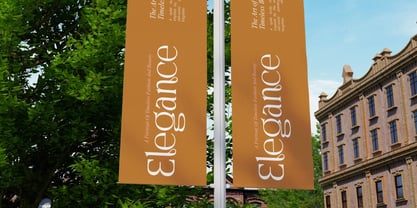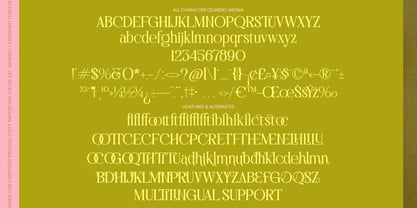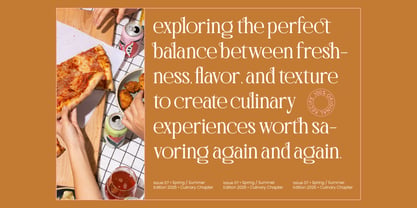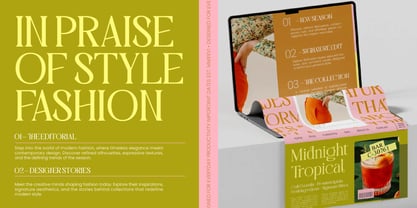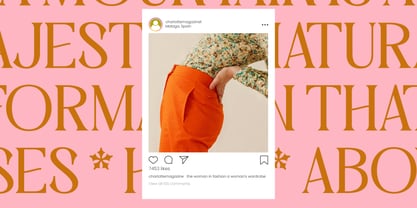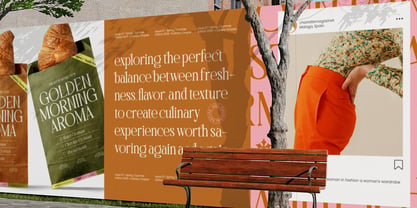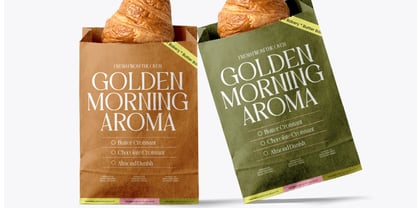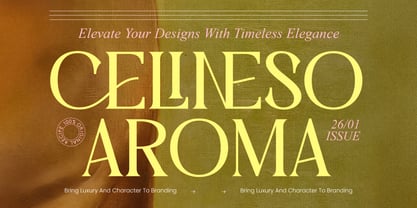
Celineso Aroma
La familia tipográfica Celineso Aroma fue diseñada por Heru Utama Putra y publicada por Timelesstype Studio. Celineso Aroma contiene 2 estilos y opciones de paquete familiar. Más información sobre esta familia
Celineso Aroma is an exquisite ode to refined aesthetics, capturing the essence of effortless grace in every stroke. This sophisticated display typeface transforms ordinary text into a visual masterpiece that demands attention through its poise and precision.
Inspired by the delicate scent of morning coffee and the tactile texture of artisanal paper, this font draws from the timeless elegance of classic editorial design. It evokes a sun-drenched atelier where every curve and line is crafted to tell a story of quiet luxury and enduring beauty.
Featuring a high-contrast serif design, this modern serif display delivers a powerful branding impact while maintaining a sense of delicate charm. As a premier luxury typography choice, it serves as a quintessential editorial font for creators who seek to balance bold presence with intricate, thin-stroke details.